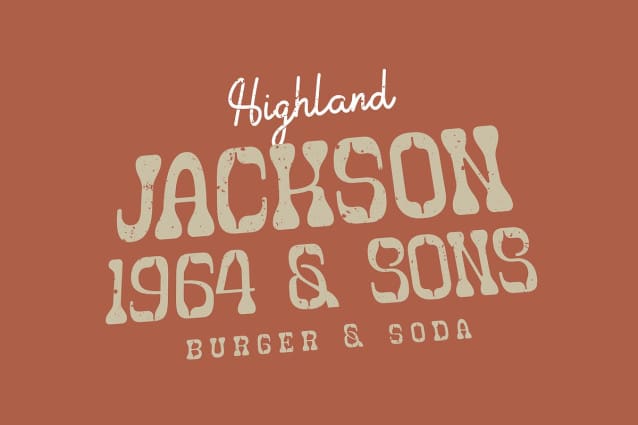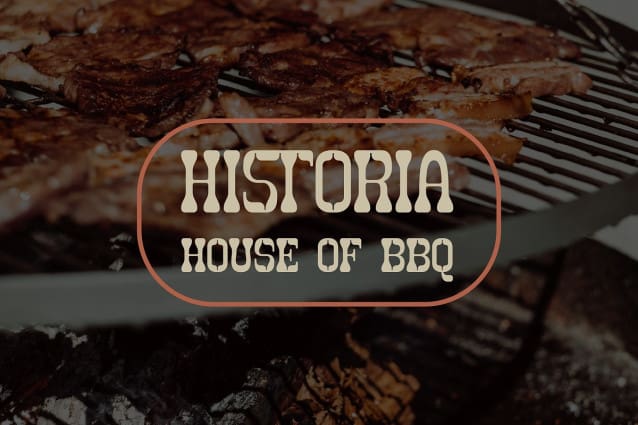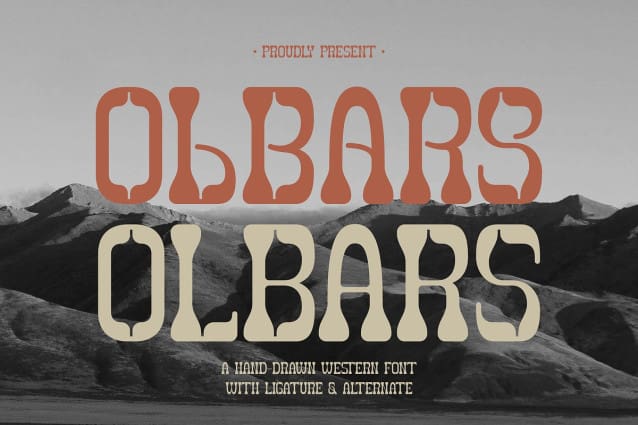
Olbars Western Font
Olbars Western Font, from Gracetypestudio, suitable for any projects such as: logos, branding projects, homeware designs, product packaging, mugs, quotes, posters, shopping bags, t-shirts, book covers, name card, invitation cards, greeting cards, label, photography, watermark, special events, and all your other lovely projects that need a Western Font taste.